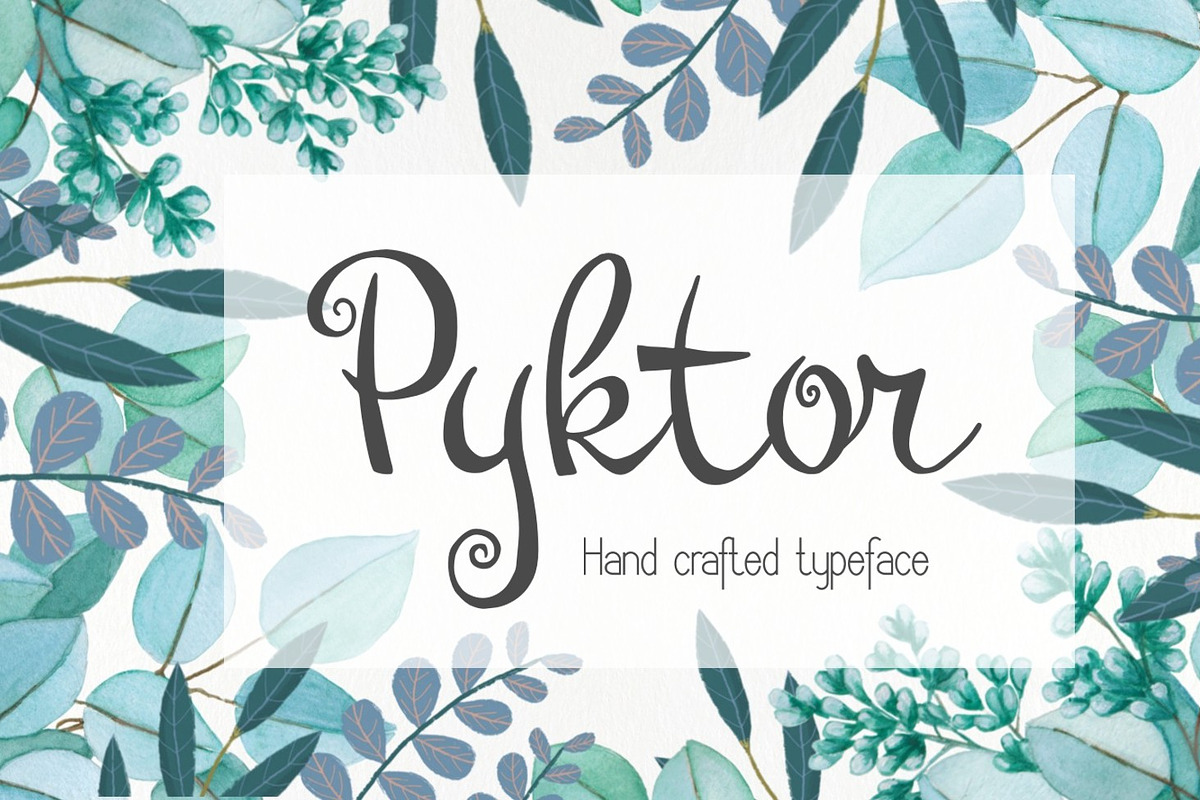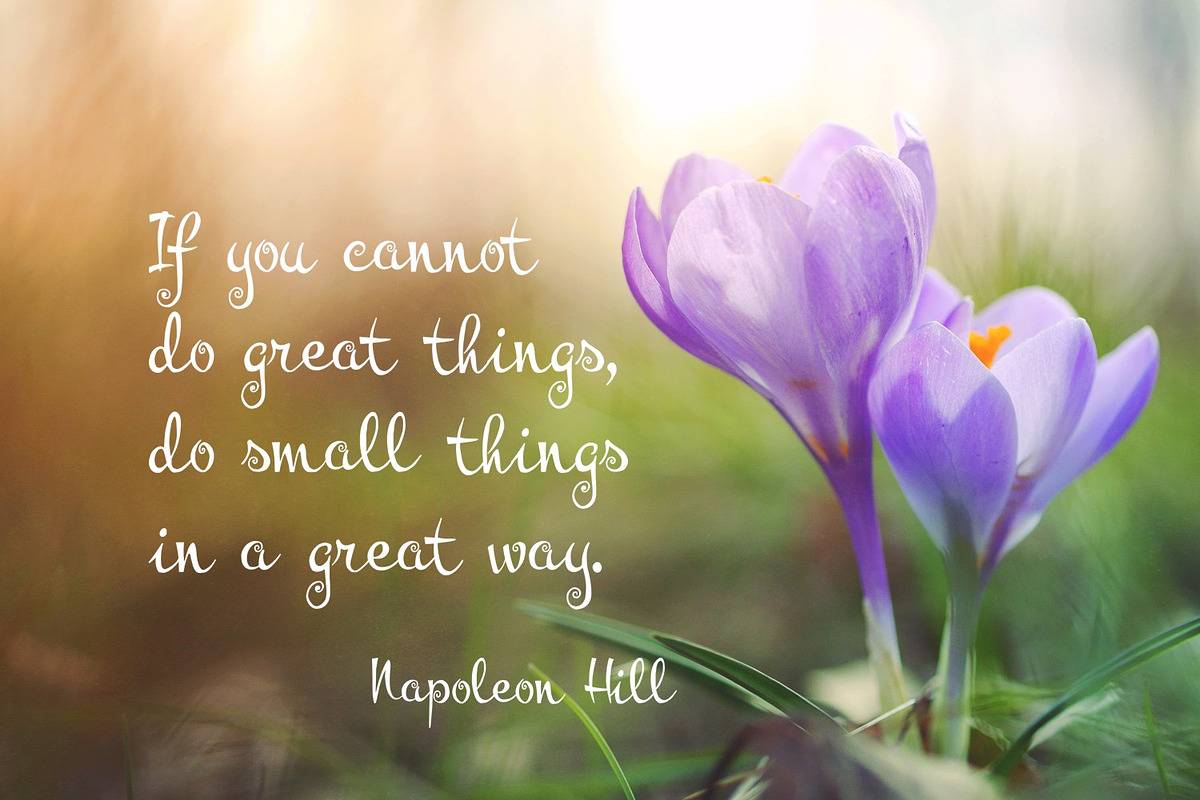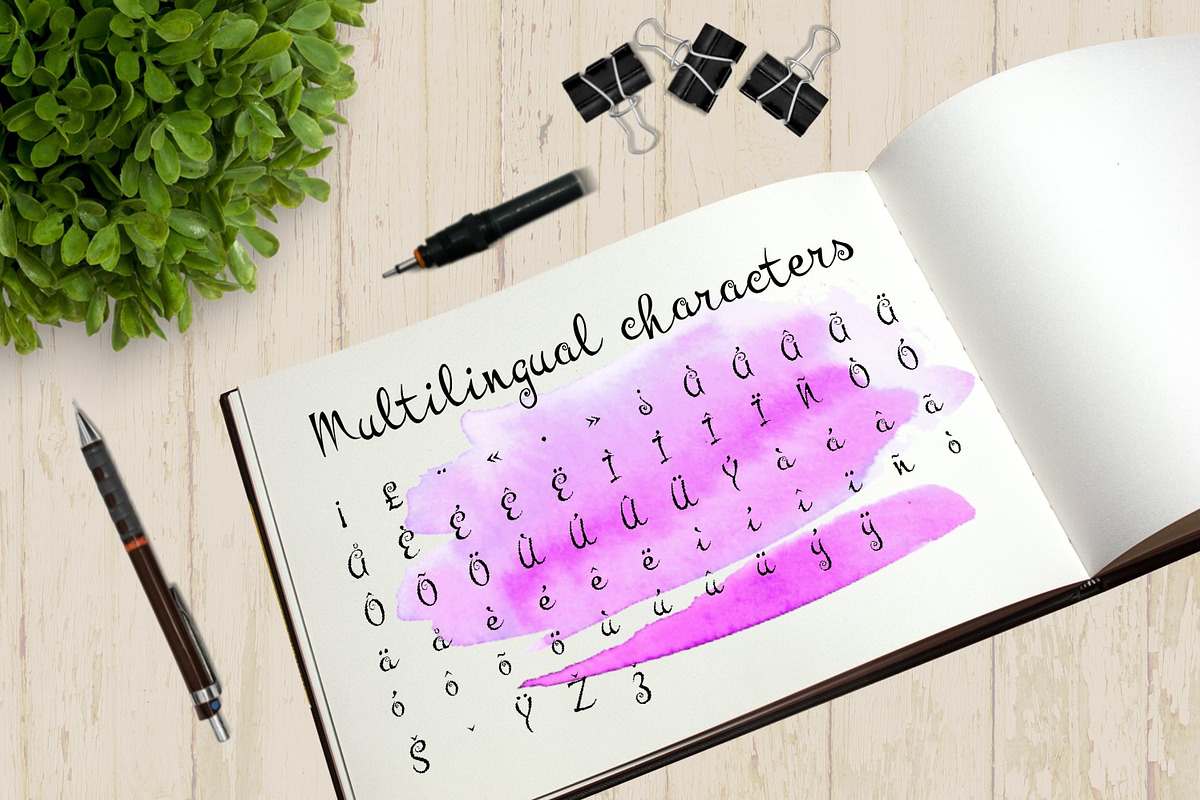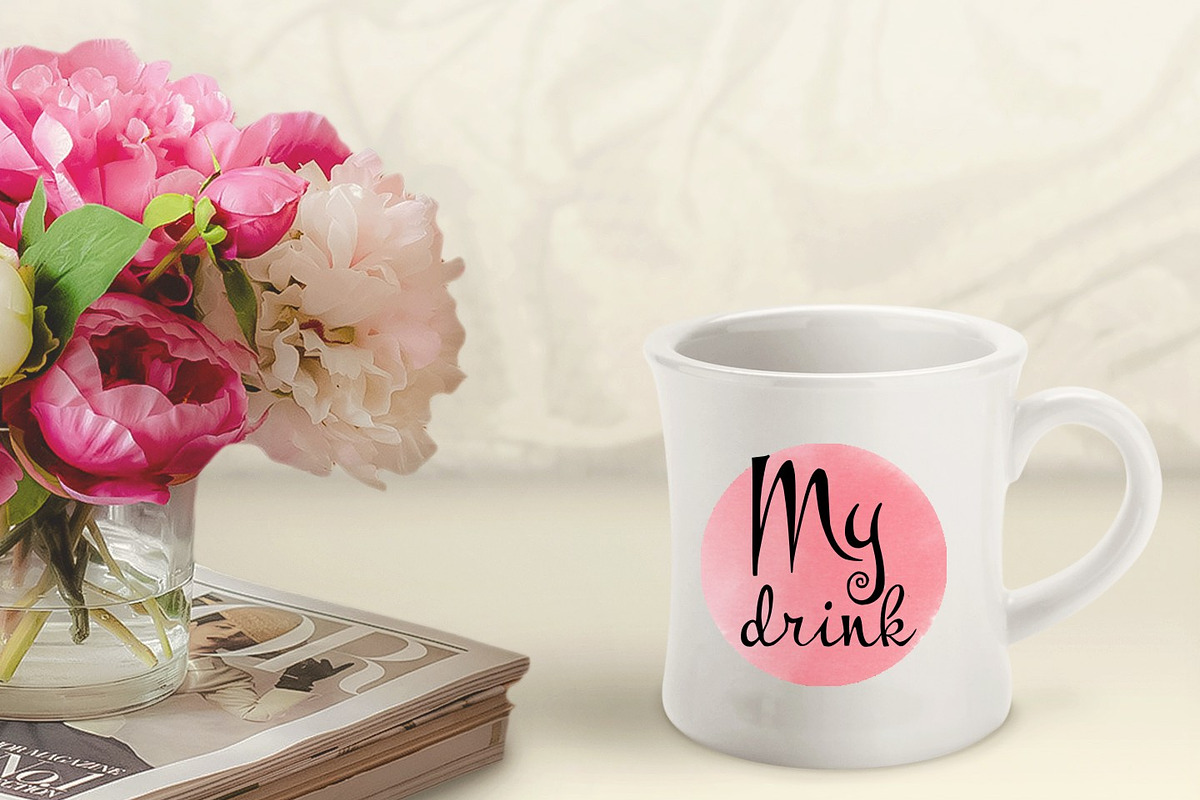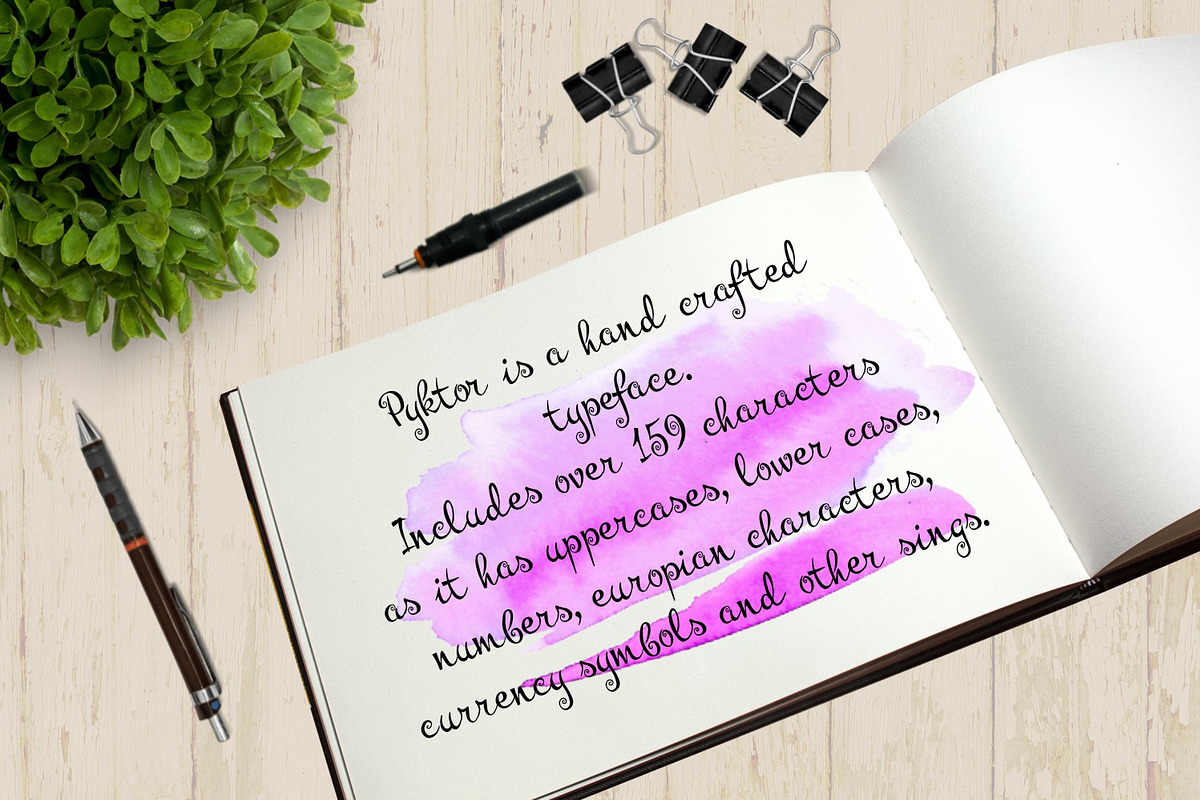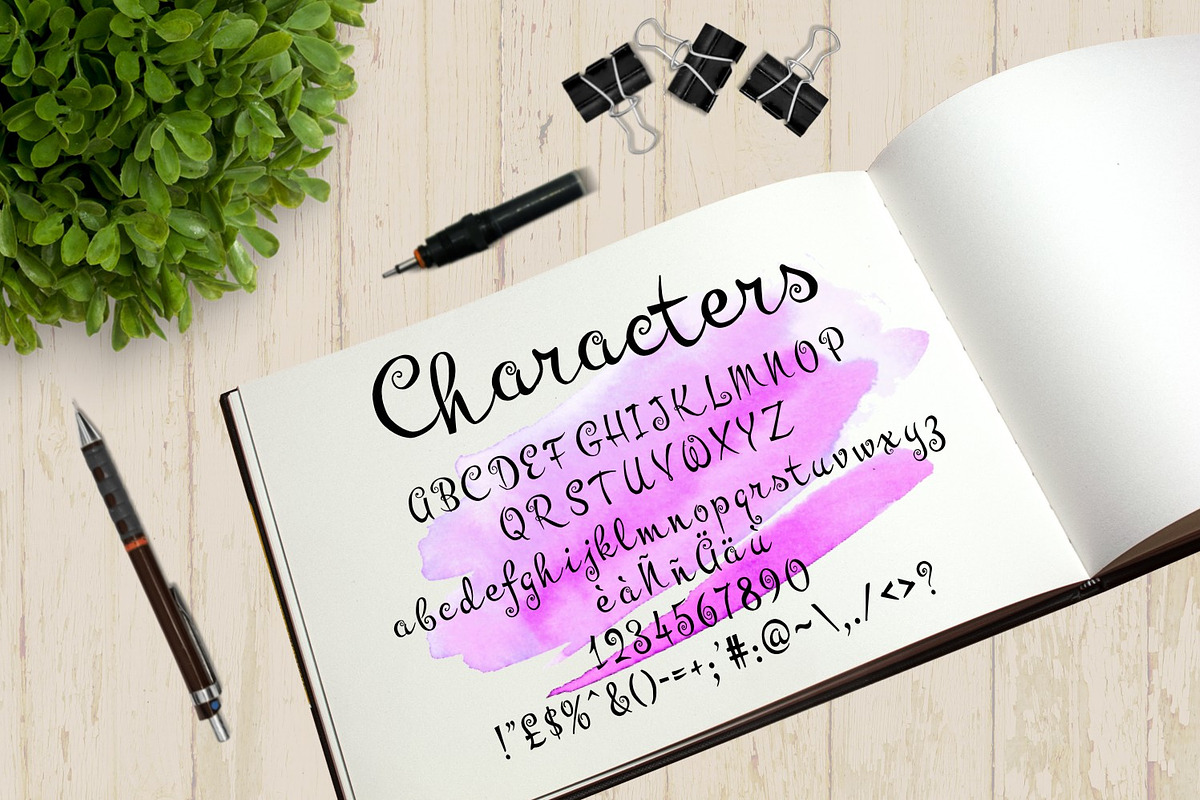
Pyktor script font
Pyktor script font by Digital Typeface Studio is a font selected for branding, posters, packaging, typography.
Why Pyktor script font is worth a look
Pyktor script font by Digital Typeface Studio fits naturally into Branding, posters, packaging, typography.